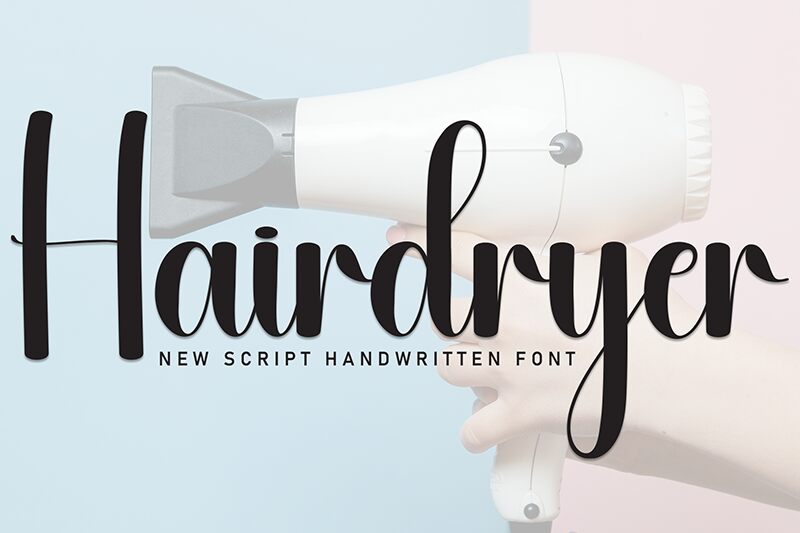
Hairdryer
Hairdryer font is a free handwritten font designed by Andi Moz, and it features an original cursive style. The use of high contrasts within the typeface creates a dynamic presence with all its details by simulating natural handwriting. Hairdryer is beautiful, pretty, and will ideally complement any design project that requires a human touch.
Use Hairdryer for branding through packaging or stationery designs; logotypes can also utilize this charming typeface. It fits in the beauty industry for cosmetics branding going from spa labels to makeup brands and skincare products. Enjoy uses in card designs from birthday invitations to other special event cards like weddings, graduations, anniversaries.